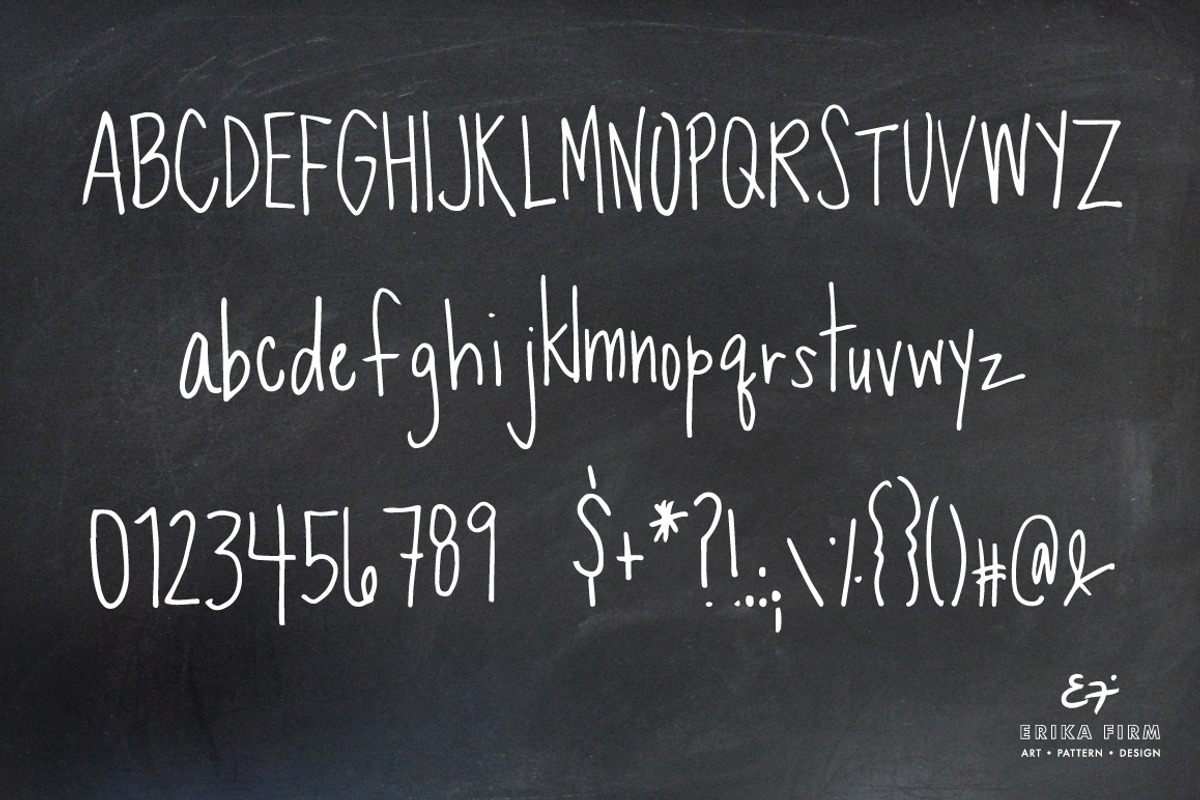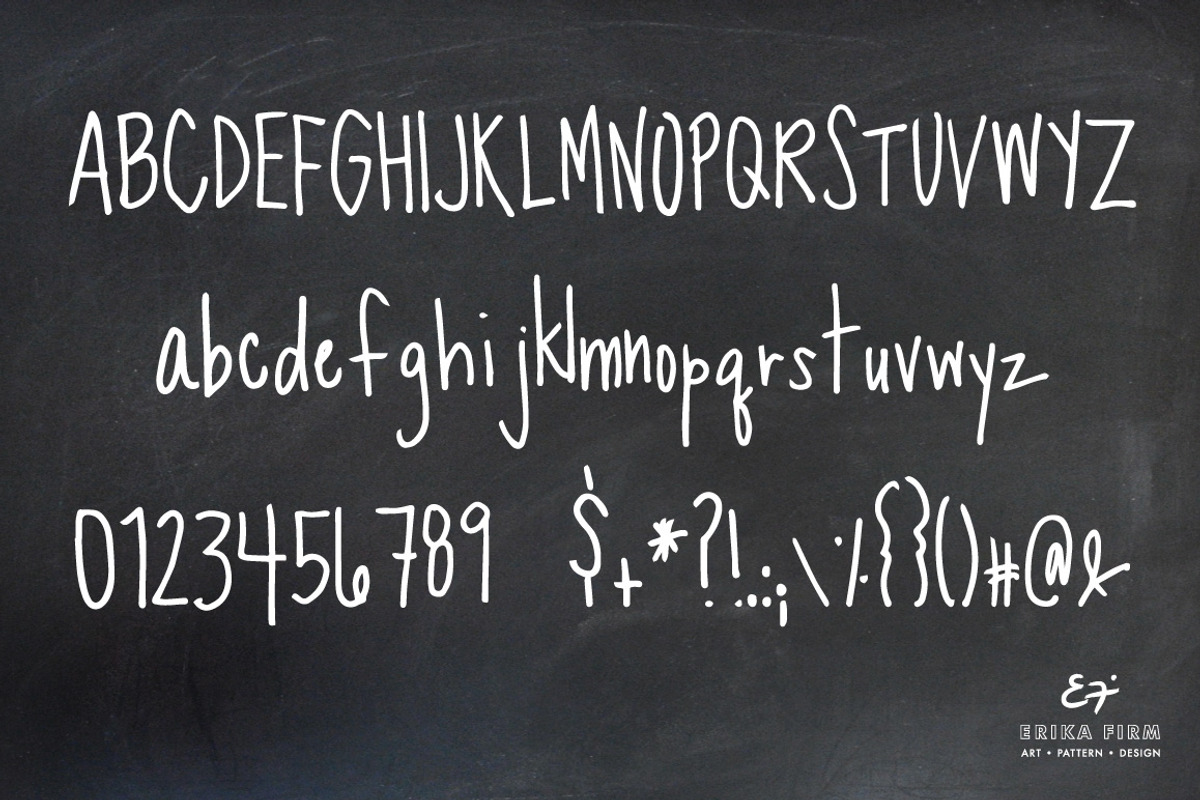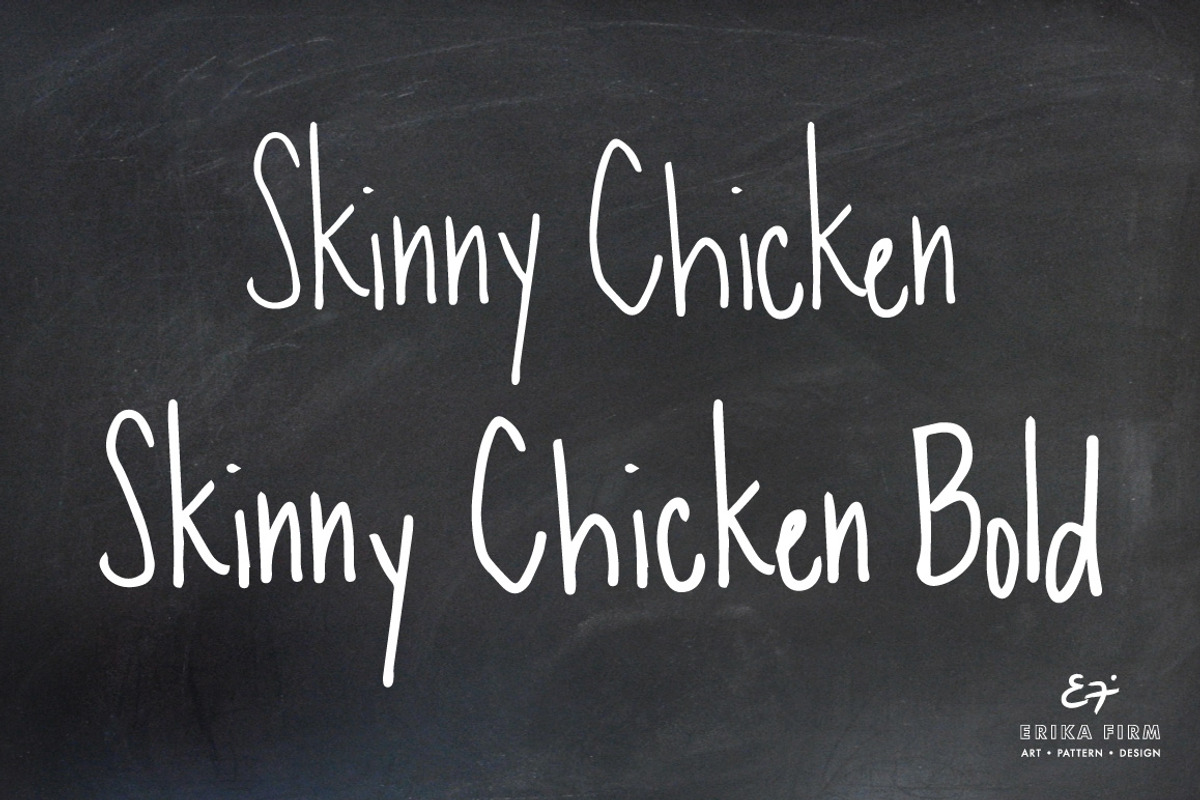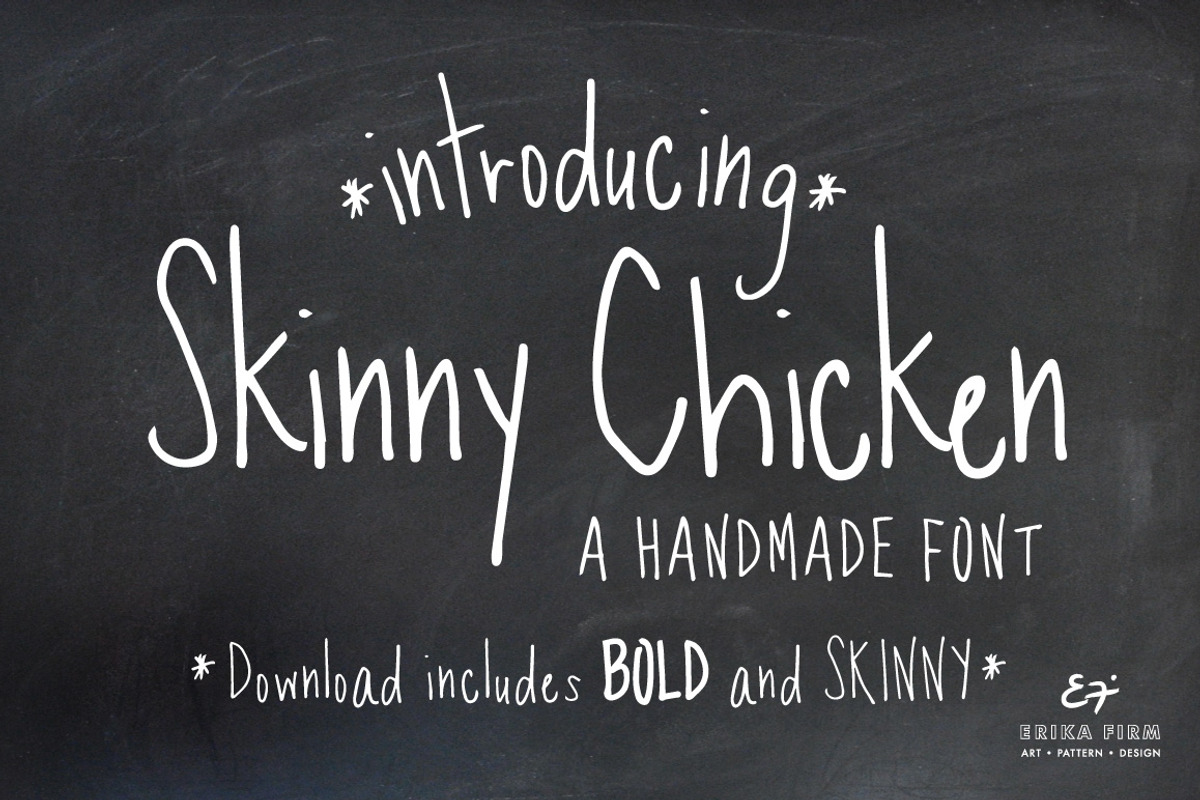
Skinny Chicken Handmade Fonts
This download includes our Skinny Chicken handmade font in 2 weights - normal and bold. Perfect for logos, tags and stationery!